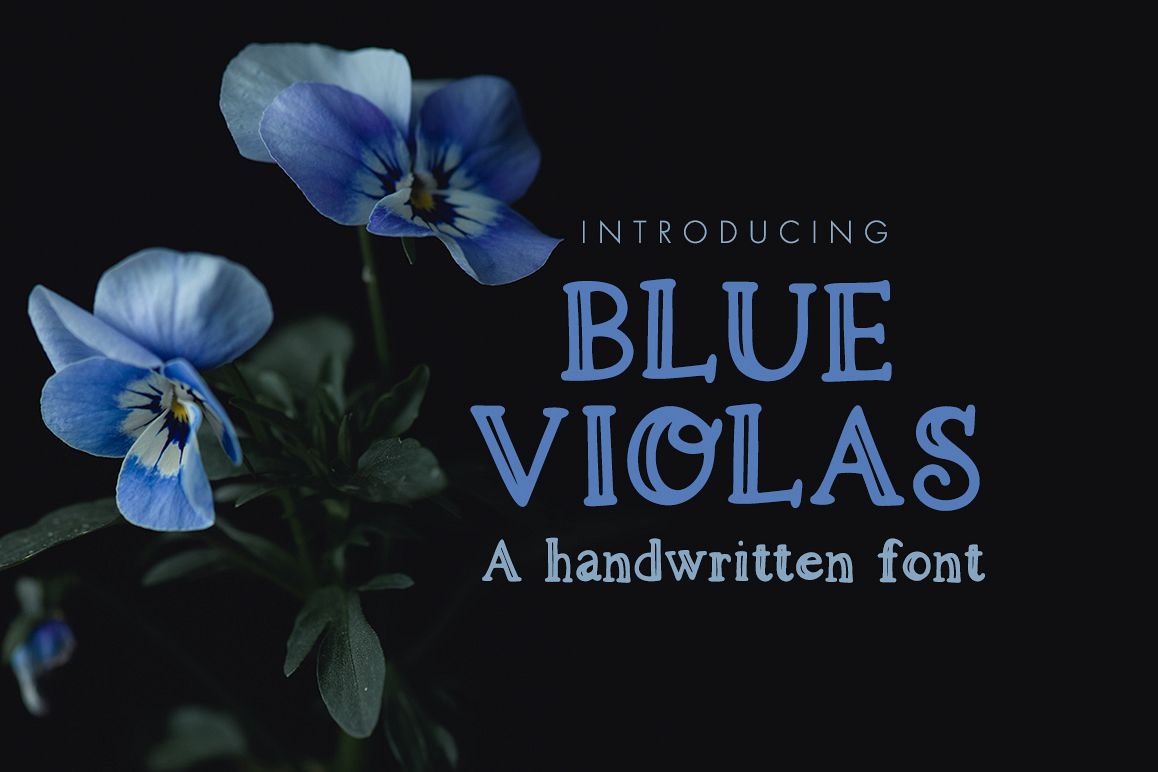
Blue Violas - a handwritten font
Blue Violas - OTF and TTF handwritten, fun font.
Full set of upper and lower case letters, numbers, plus some special characters and accents (see my 5th image).
Includes characters for language support, both Czech and Polish.
A few characters comes with alternates:
J K O Q R S X
a f g j o r t y